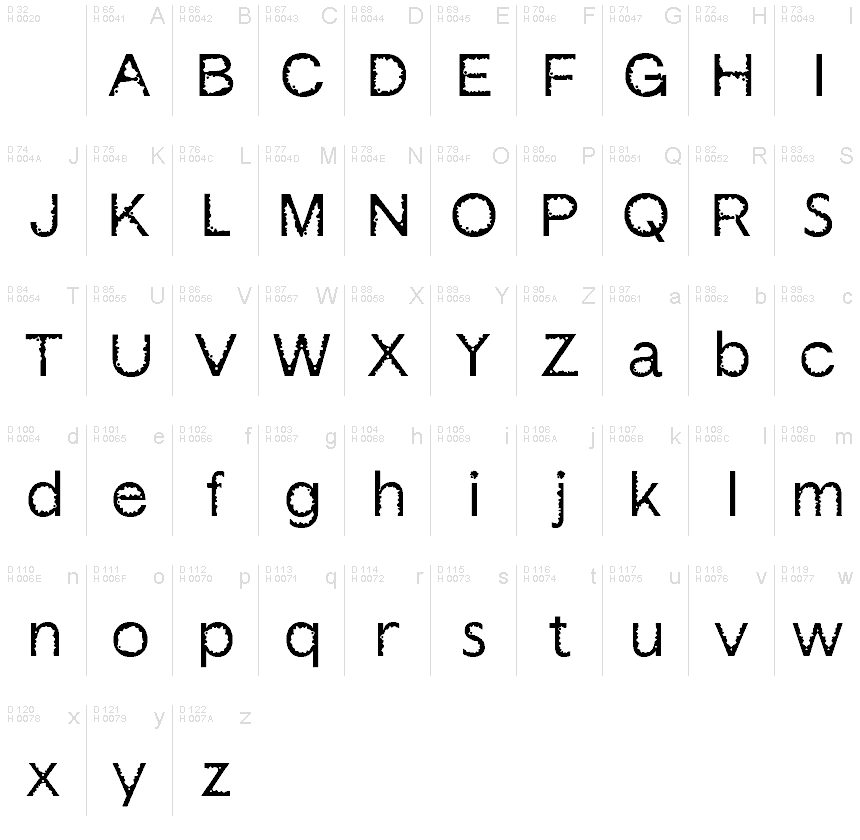
CS Decland Regular Demo
CS Decland font by Craft Supply Co. is a display typeface with rugged eroded textures and irregular characters that gives the impression of being typed on an old machine with a worn-out ribbon. This free decorative font is whimsical, with no real baseline, no proportions rules, or distinguished shapes that ultimately attract attention.
Use CS Decland in posters, business cards, books covers and pages (inner sections), music & album CD covers, social media posts (both images & videos), printed goods (like catalogs and magazines), and product labels.